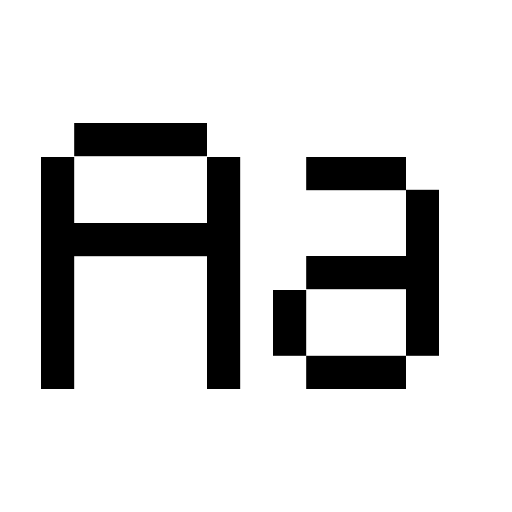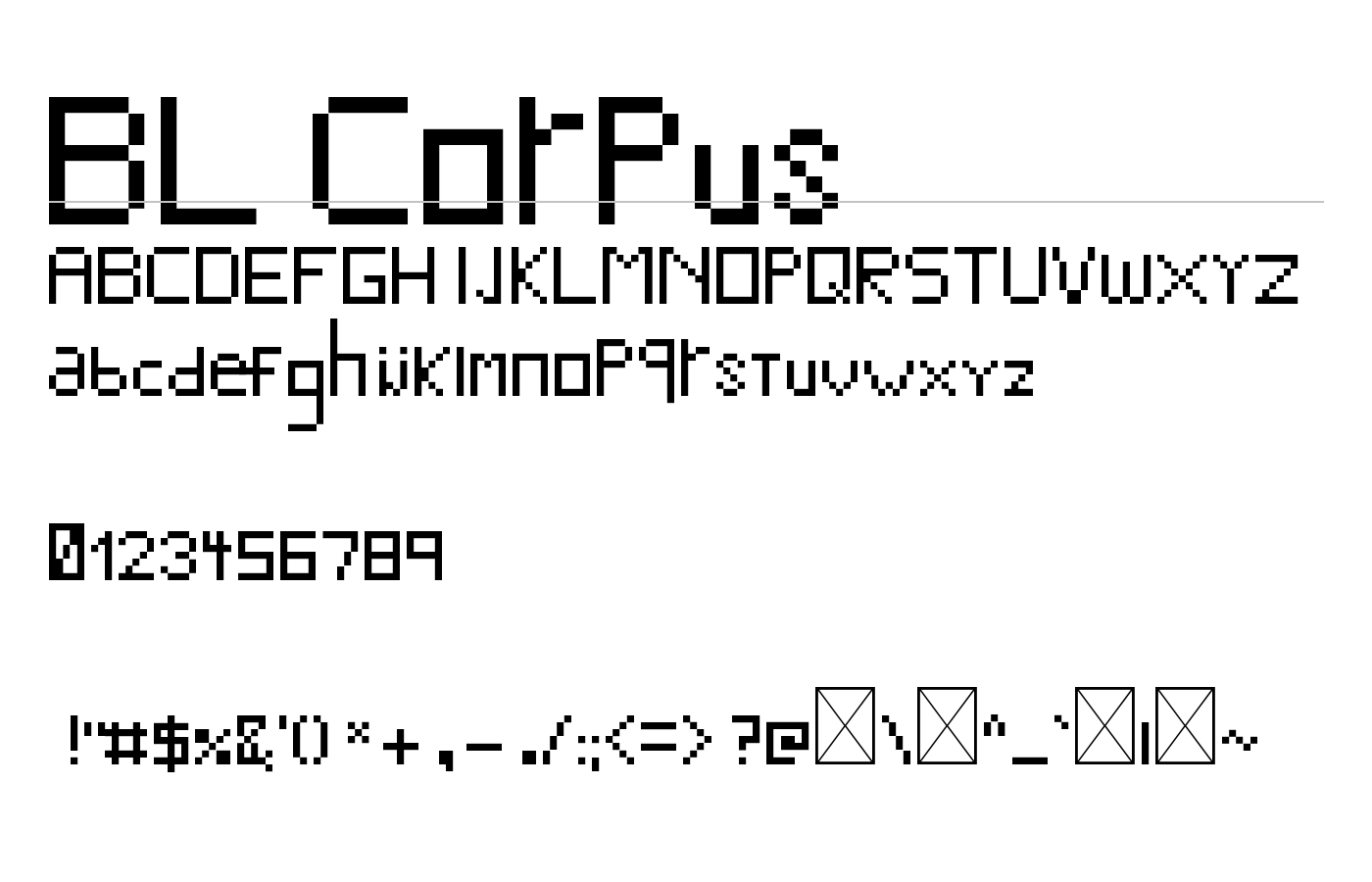
BL Corpus Font is a pixelated, monospaced sans serif typeface that features a blocky, geometric style reminiscent of early digital or arcade fonts. Its highly regular, grid-based letterforms with consistent stroke weight make it ideal for retro, tech-inspired design projects, particularly in gaming, digital interfaces, or any context seeking a nostalgic yet clean, functional look. This font works best for headlines, logos, or on-screen text where clarity at small sizes and a vintage digital vibe are desired.
BL Corpus Font
About BL Corpus Font
| Font family | BL Corpus Font |
| Designer | blobbby |